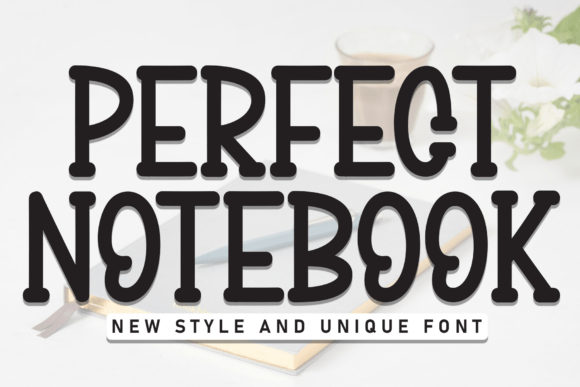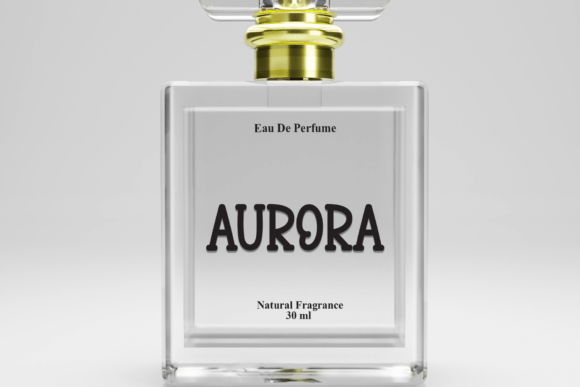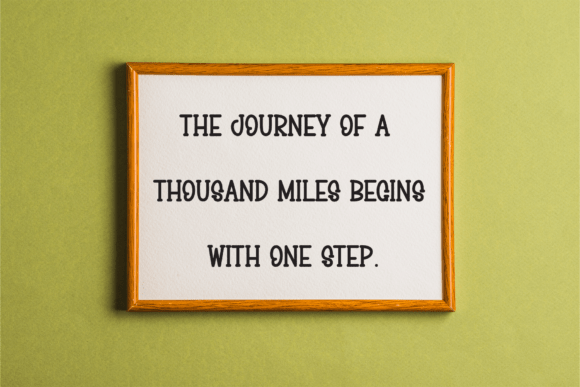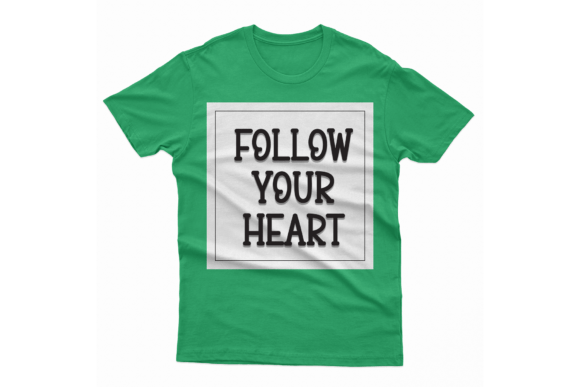
Perfect Notebook Font
About the Perfect Notebook Font
Let us introduce you to Perfect Notebook Font, where timeless design meets modern craftsmanship. special creative products for you, our products will give you an extraordinary experience.
the latest style letters are perfect for wall displays, wedding invitations, social media post logos,
advertisements, product packaging, product designs, labels, photography, watermarks, invitations, stationery,
and any project that requires taste handwriting.
Perfect Notebook Font Usage Examples
Perfect Notebook Font Example